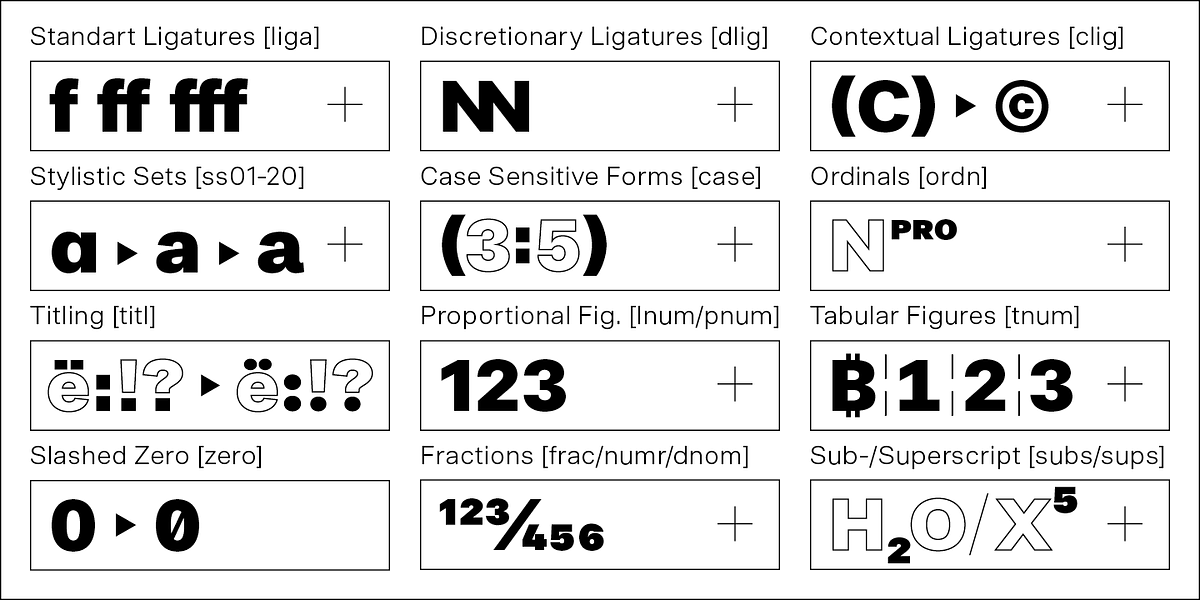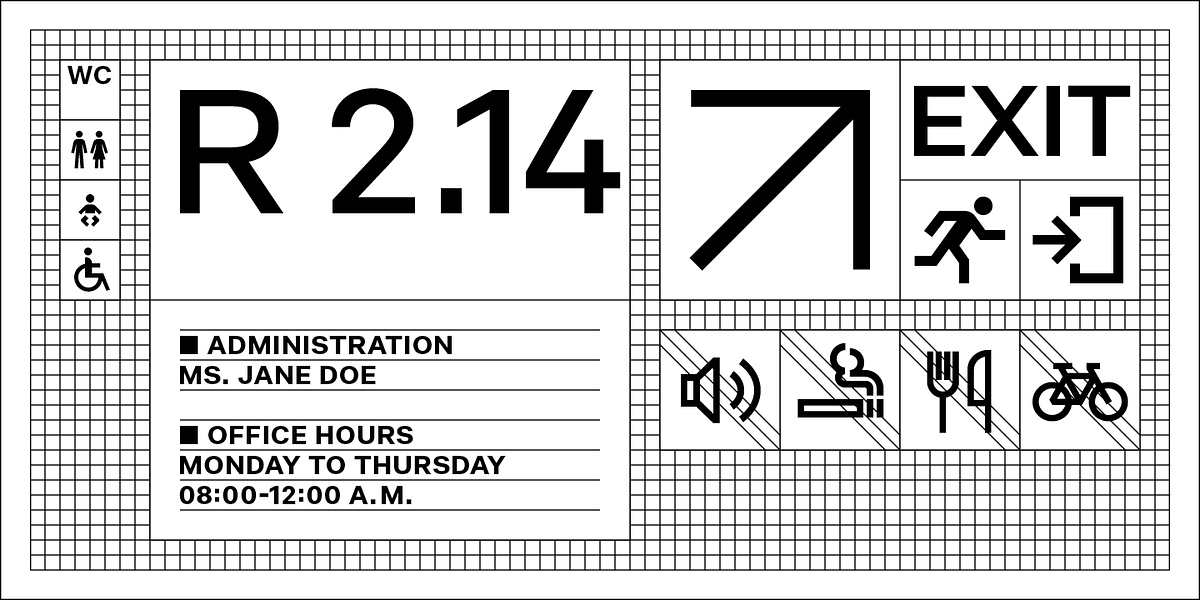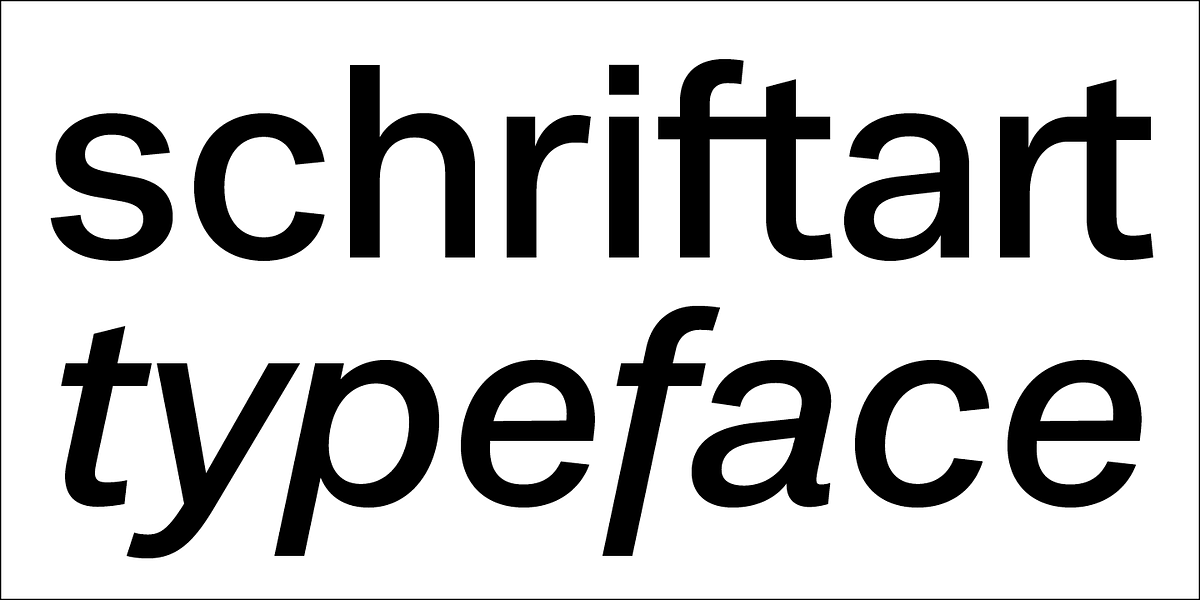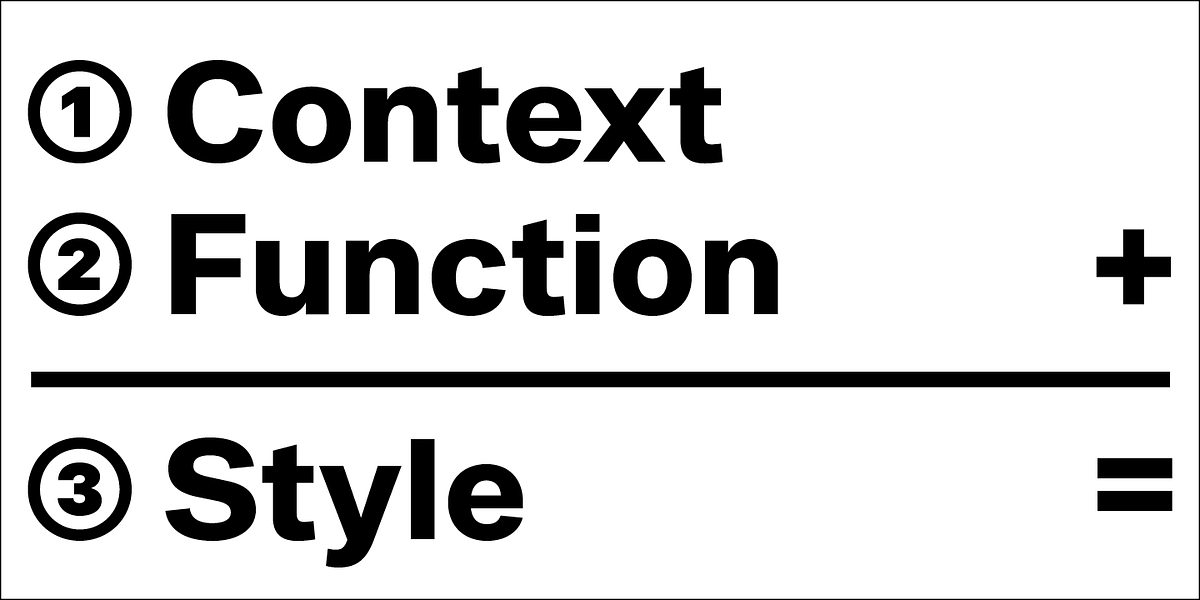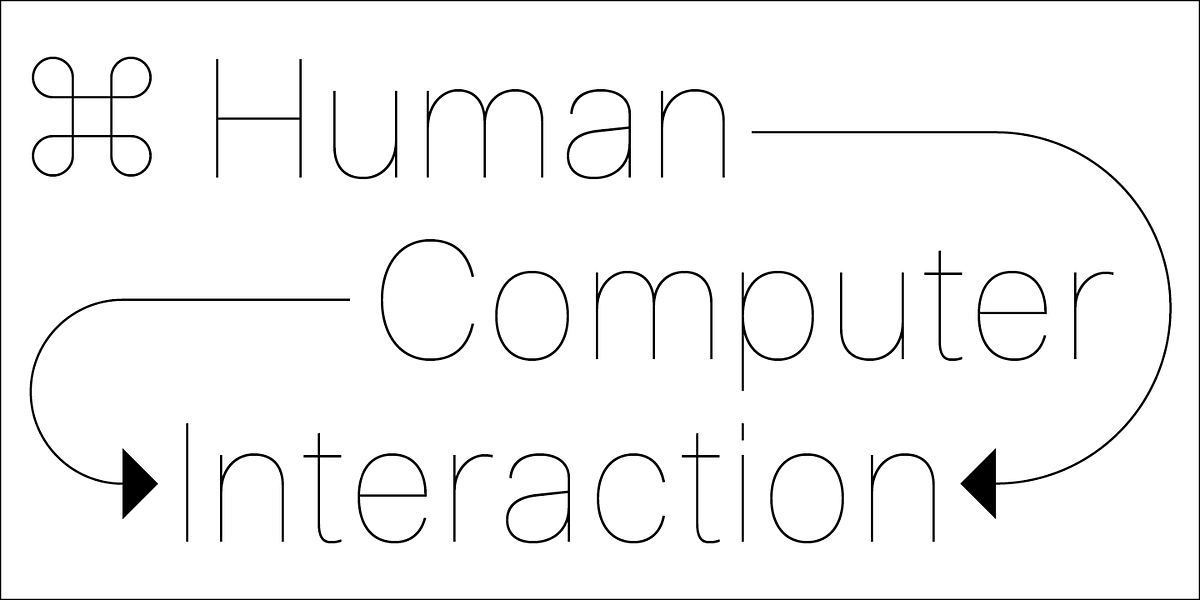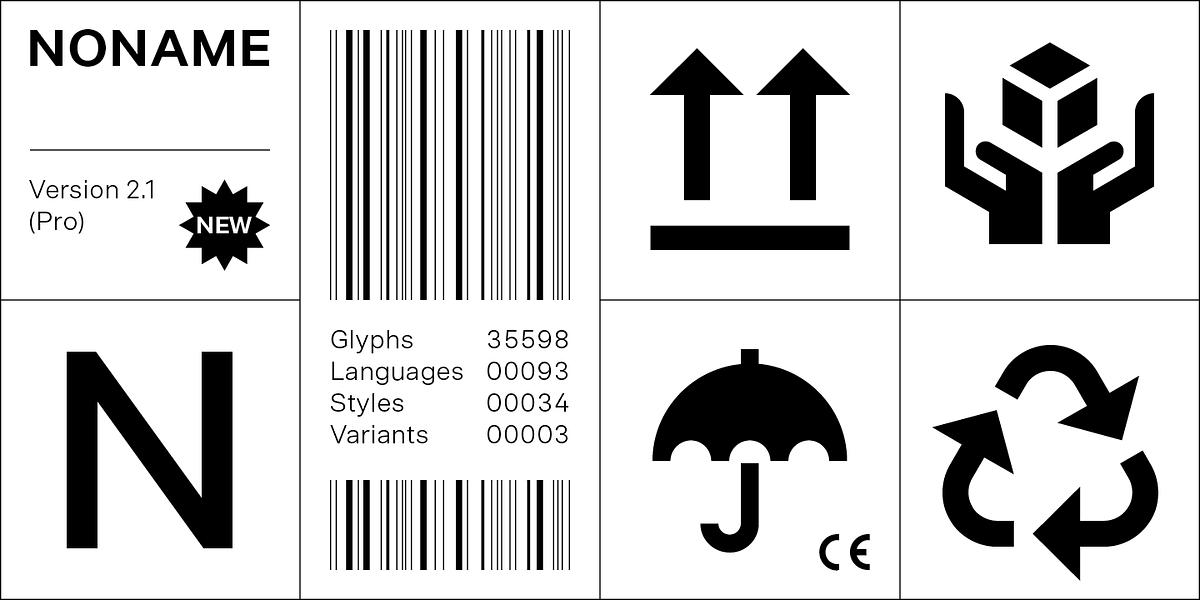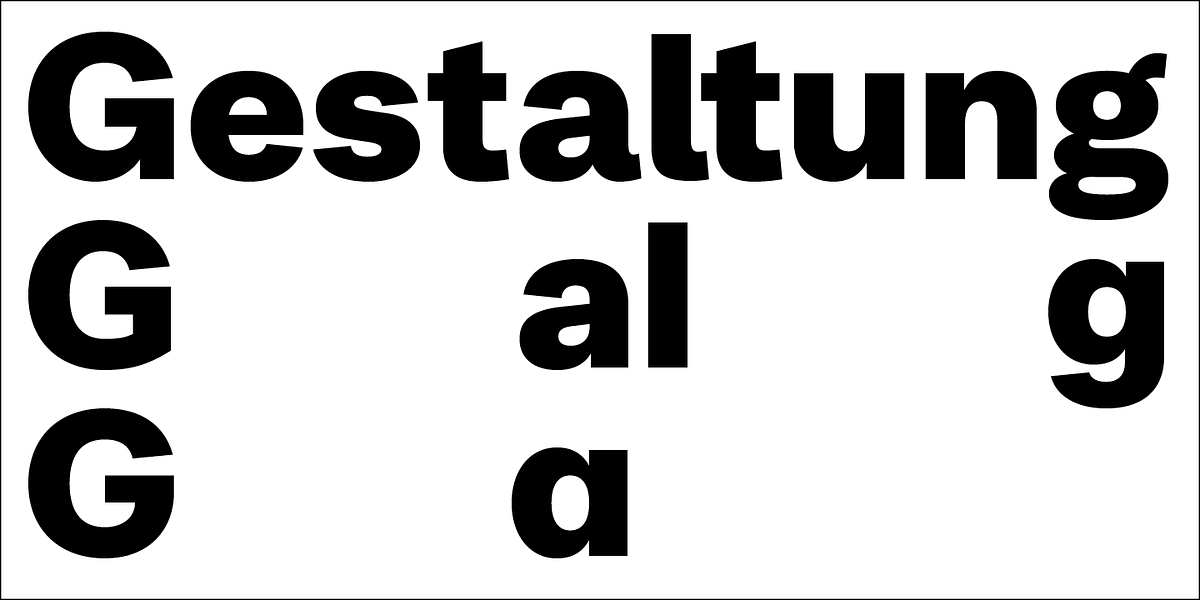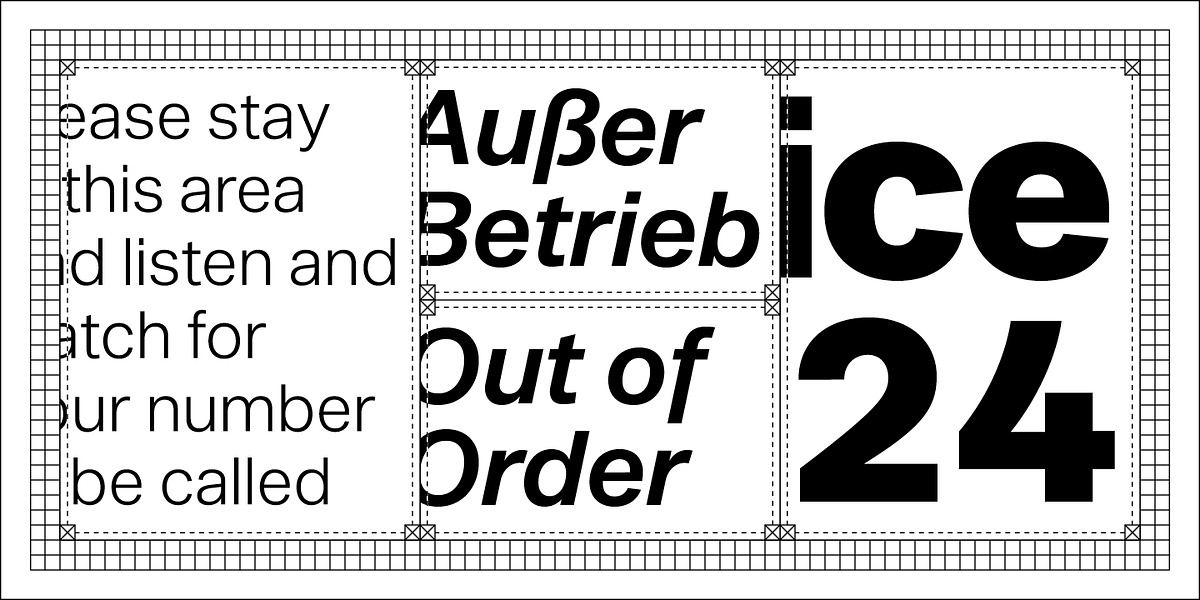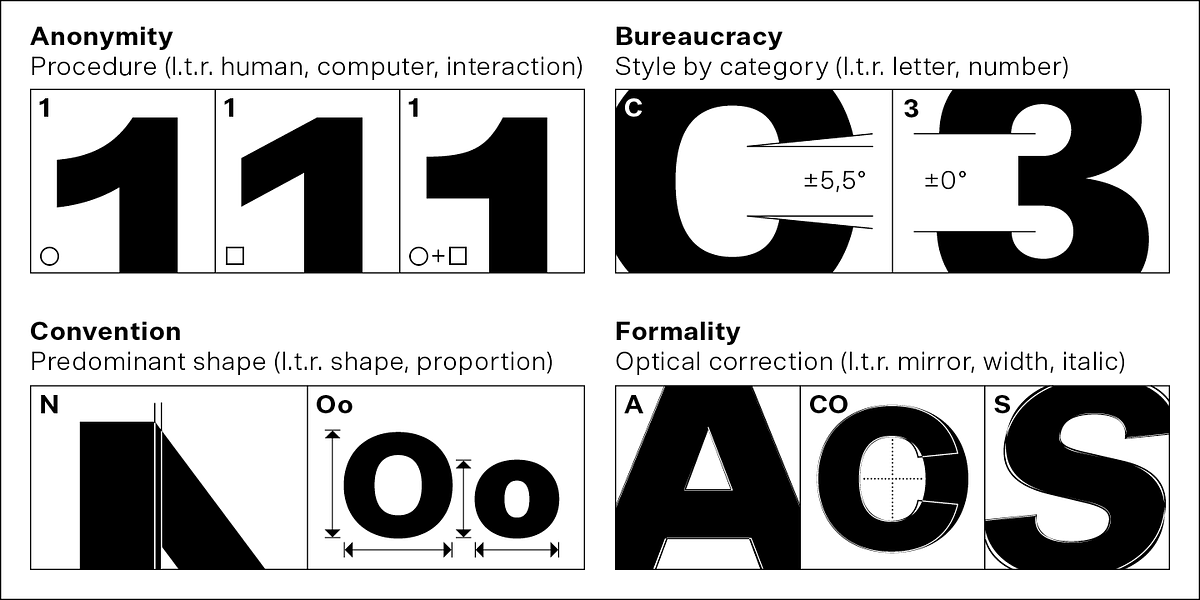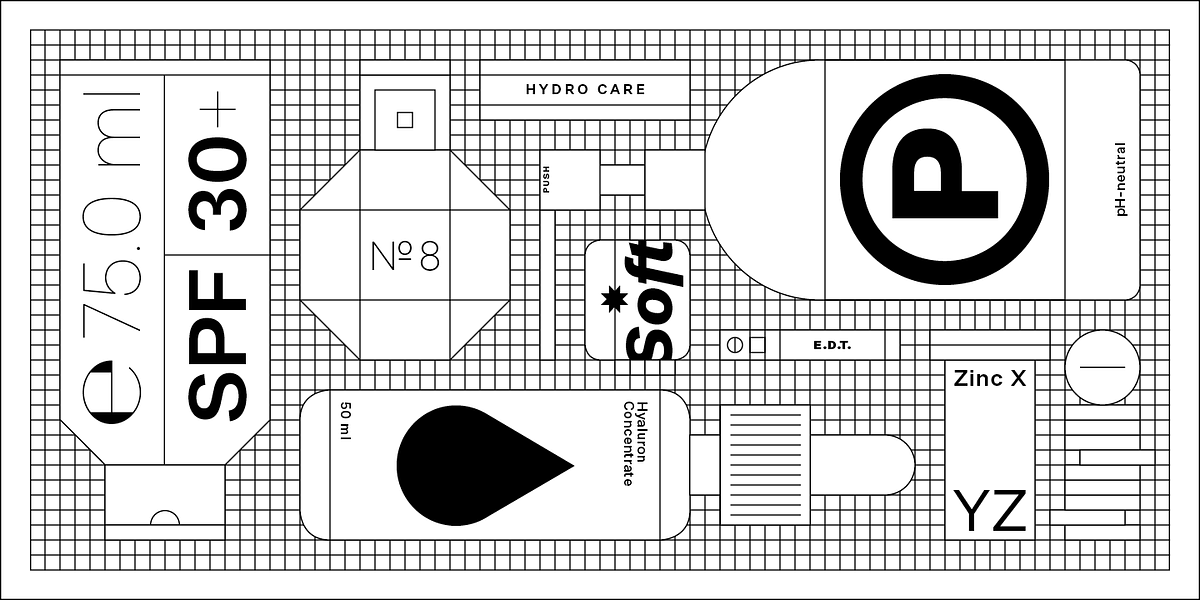
BB Noname™ (Pro)
BB Noname™ (Pro) is a humanist sans serif font designed for contemporary use. It aims to convey neutrality and objectivity, often associated with public service applications. The typeface incorporates elements of traditional handwriting while maintaining a clean, geometric structure.